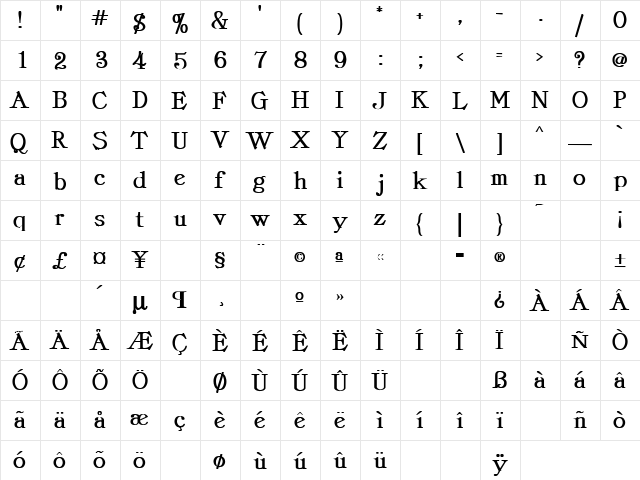
Around 4 Bold Font Preview
Around 4 Bold
Design Context for Around 4 Typeface
Around 4 softens its letterforms with rounded terminals, giving it an approachable, friendly quality that works well in consumer-facing and digital contexts. Its bold stroke weight gives it real presence on the page.
Well-suited to UI design, mobile interfaces, and any brand that wants approachability without sacrificing clarity.
Font Pairing: Pairs well with a rounded or humanist sans for body copy, maintaining the friendly tone without relying on Around 4 to carry extended reading.
Pro Tip: Use Around 4 for UI elements, app interfaces, and anywhere a friendly, approachable tone needs to be maintained without sacrificing clarity.